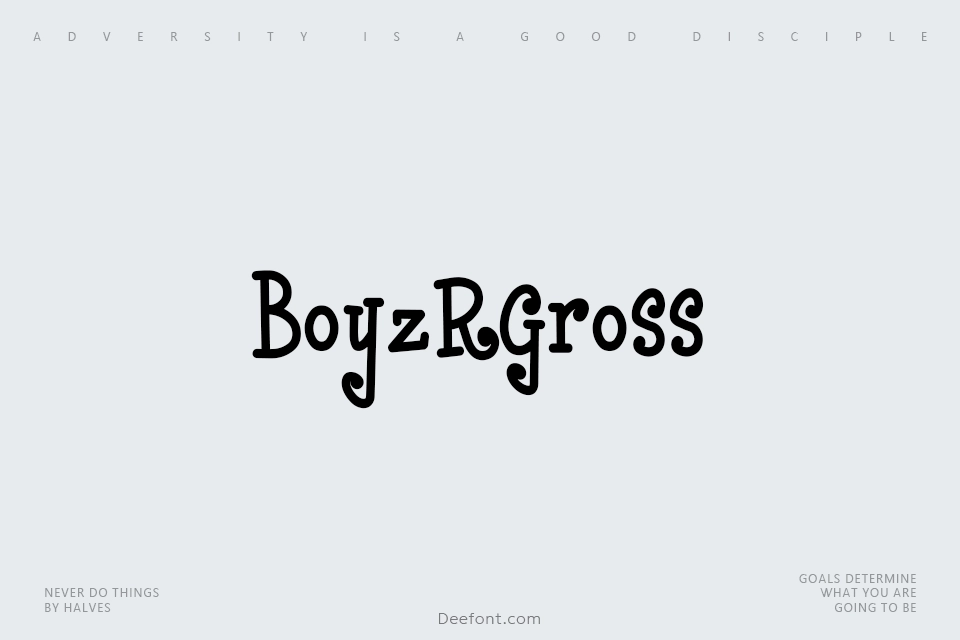
BoyzRGross Font
BoyzRGross is a distinctive display font created by designer Nick’s Fonts, featuring bold, chunky letterforms with a playful and edgy character. This versatile typeface blends graffiti-inspired vibes with vintage flair, perfect for posters, logos, and eye-catching designs. With its clean legibility and unique personality, the font combines youthfulness with sophistication, making it an excellent choice for creative projects that demand visual impact and contemporary appeal.